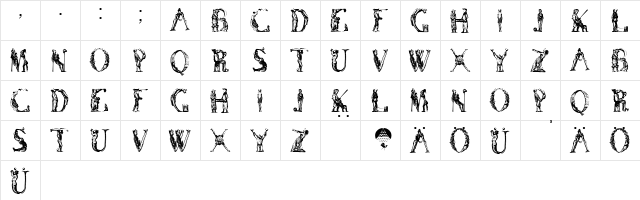
ManFont Regular Font Preview
ManFont Regular
Design Context for ManFont Typeface
ManFont is a composed and adaptable typeface that performs quietly and consistently across a wide range of design contexts.